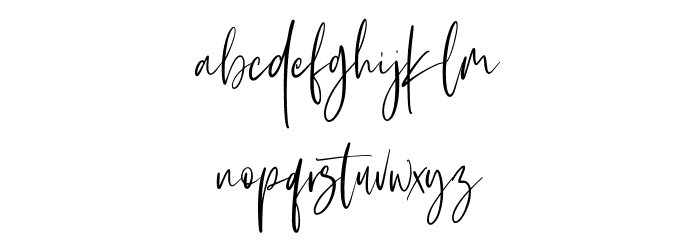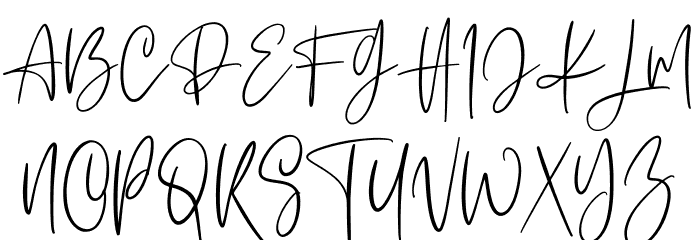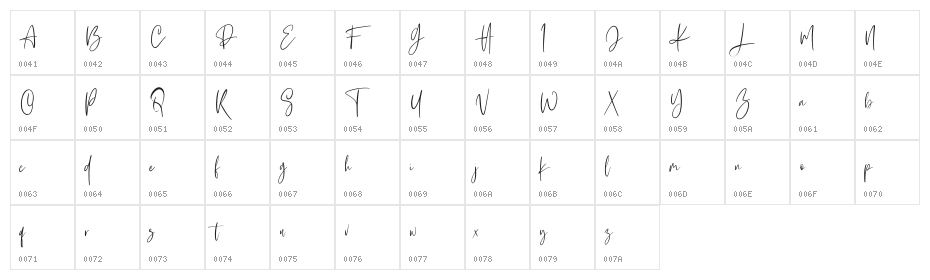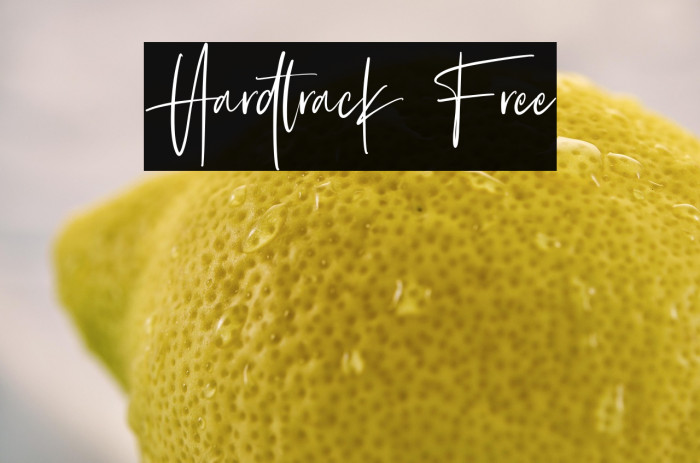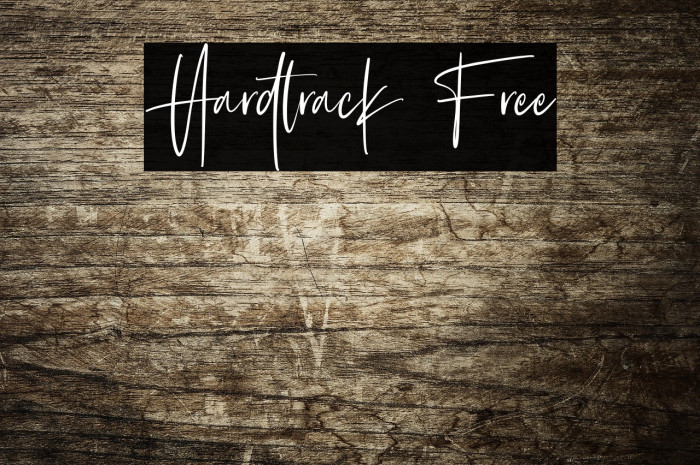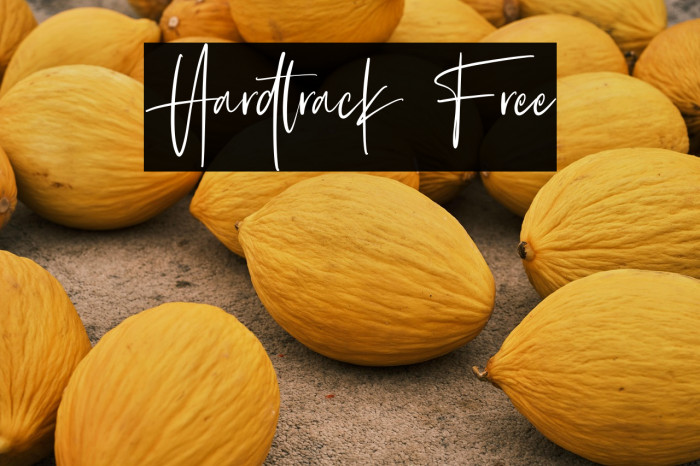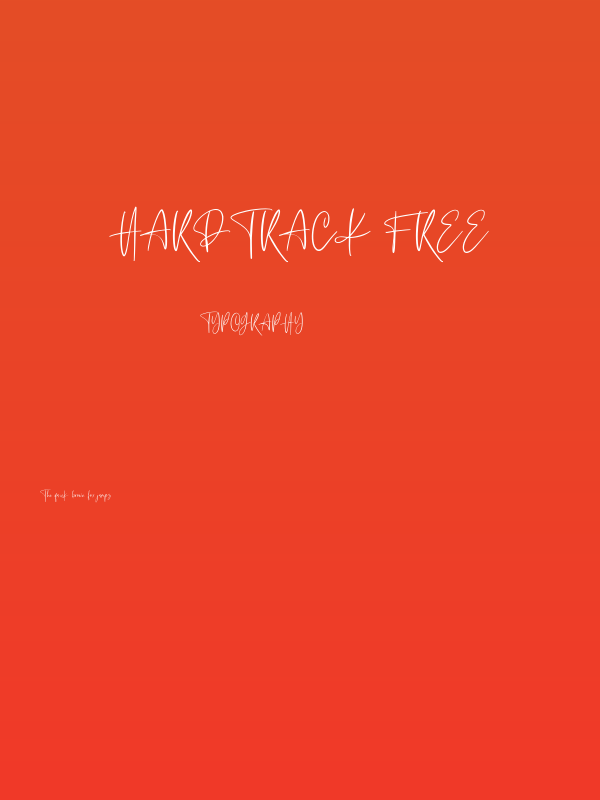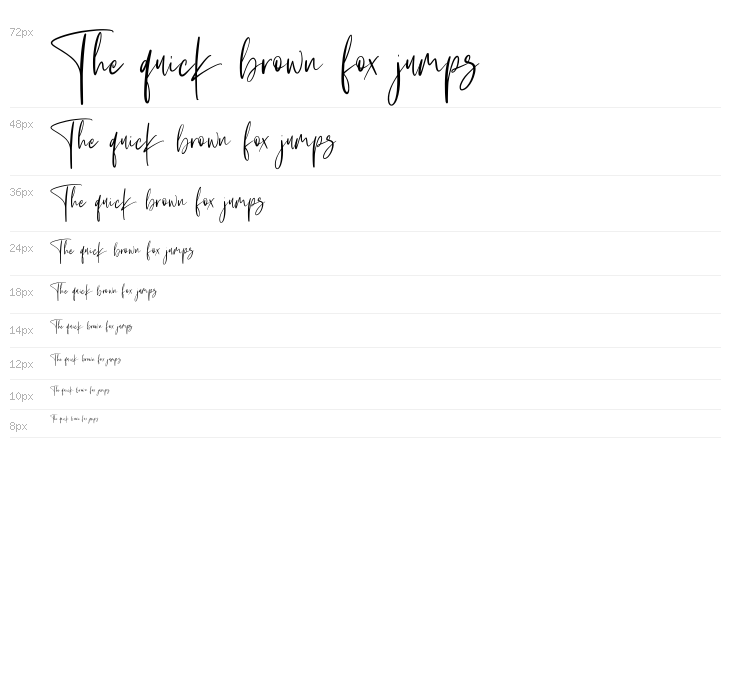
Hardtrack Free Font
This font features a dynamic and expressive handwritten style, characterized by its fluid and flowing letterforms. The strokes are varied in thickness, giving it a lively and energetic appearance. The uppercase letters are tall and slightly condensed, while the lowercase letters maintain a consistent rhythm with elegant loops and curves. The overall design is playful yet sophisticated, making it suitable for creative and artistic projects. The font's unique personality is enhanced by its irregular baseline and the occasional use of ligatures, adding to its charm and versatility.
A dynamic and expressive handwritten font with fluid, flowing letterforms.
- Proposed Projects: Ideal for wedding invitations, greeting cards, branding, and social media graphics.
- Use Case: Logos, Headlines, Decorative text